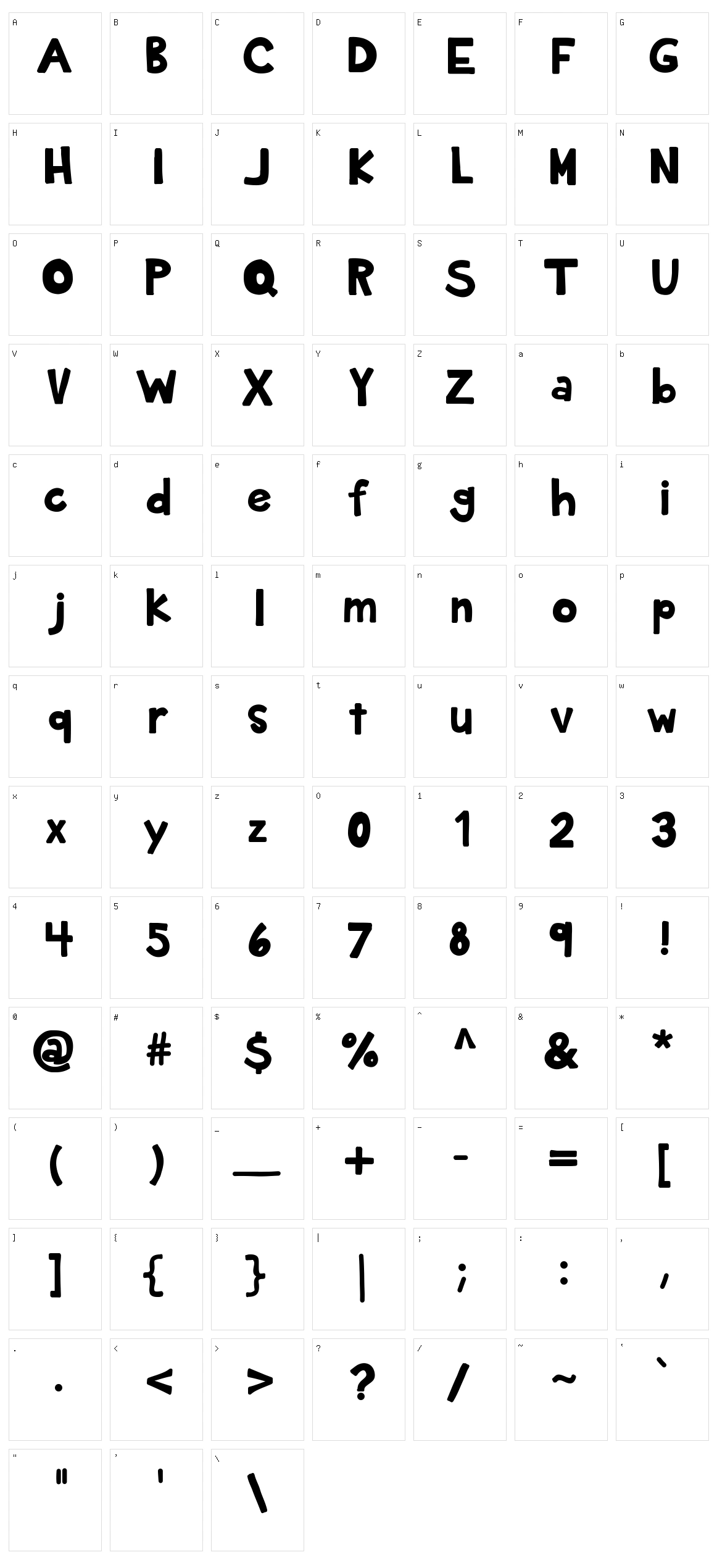
The free font KB Planet Earth is carefully designed by Khrys Bosland, showcasing a thoughtful balance of creativity and usability and falls under the Cartoon font style. When you download the ZIP file, it contains only 14.54 KB of font files, making it lightweight and quick to download. Please review the license details below to understand permitted usage and distribution rights. If license information is not available, we recommend using this font for personal projects only or contacting the author directly for commercial usage permissions.